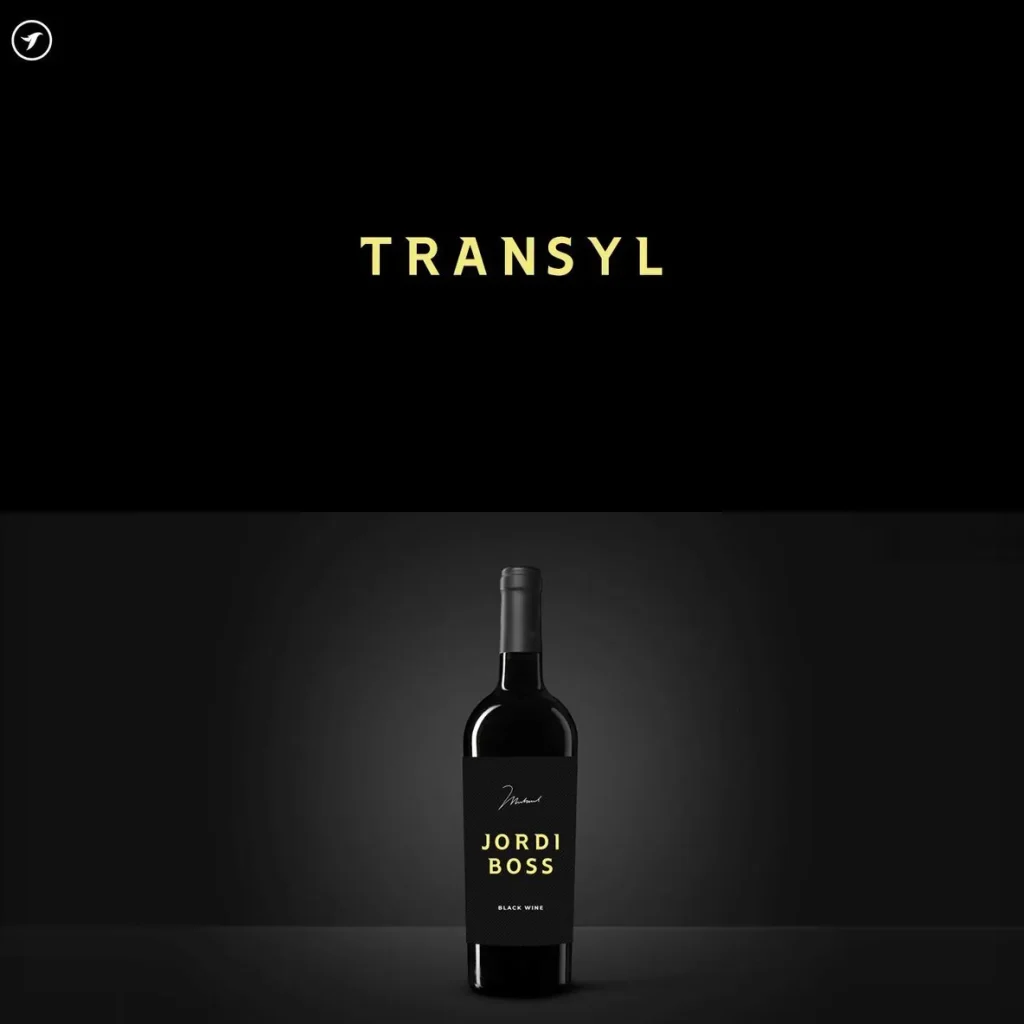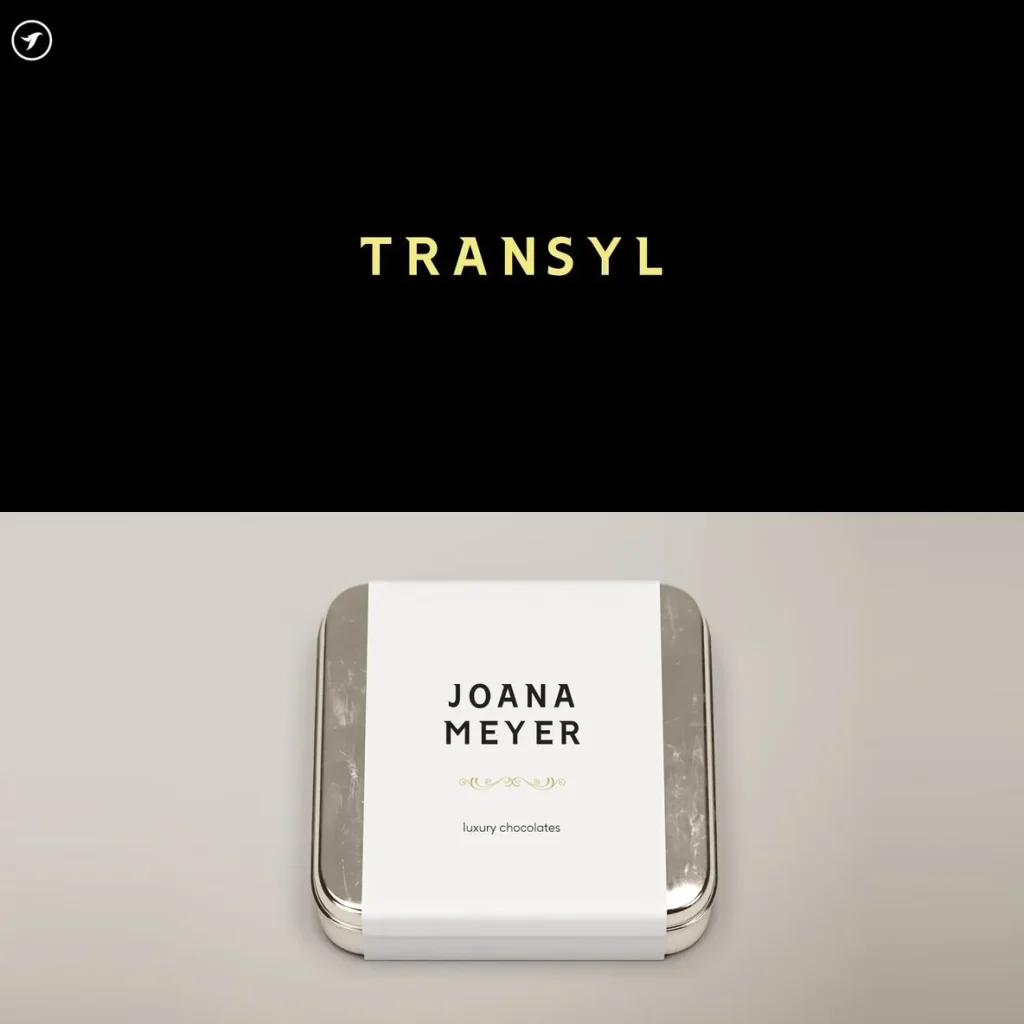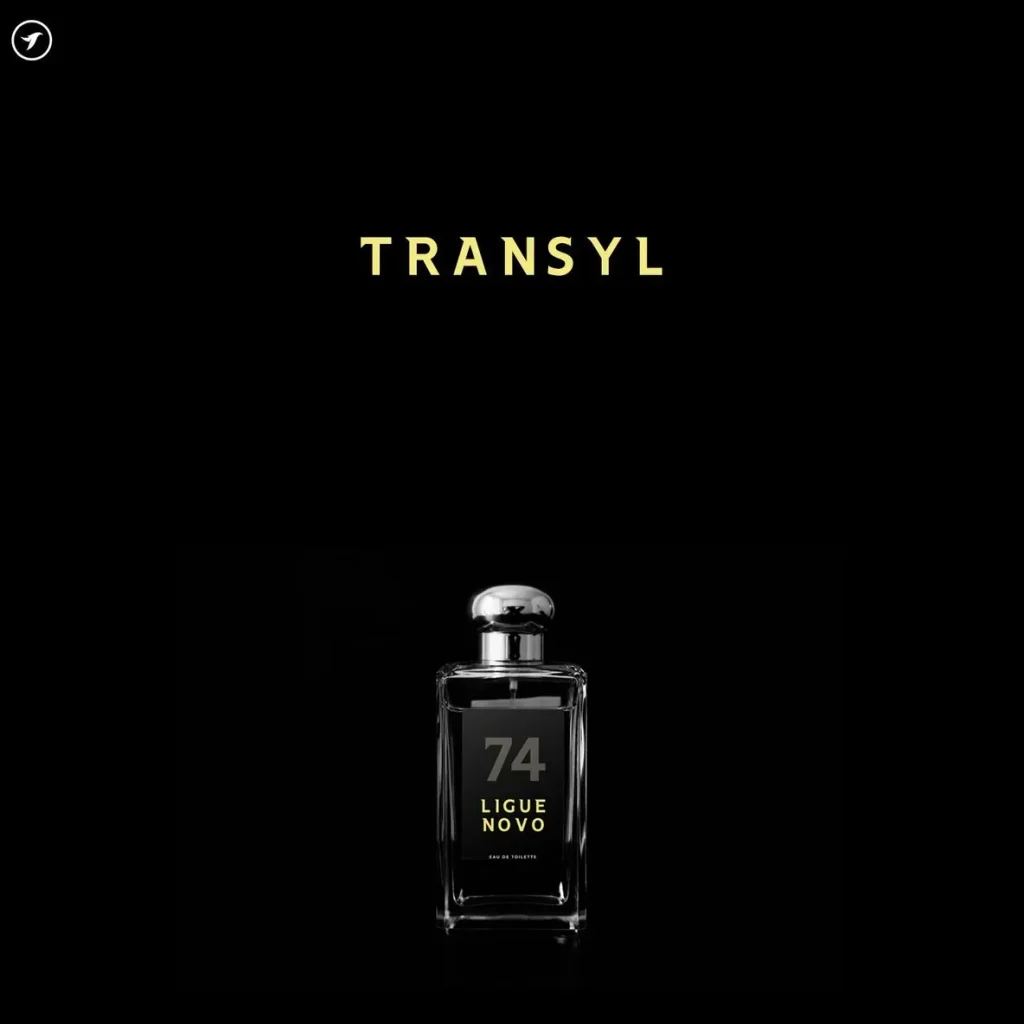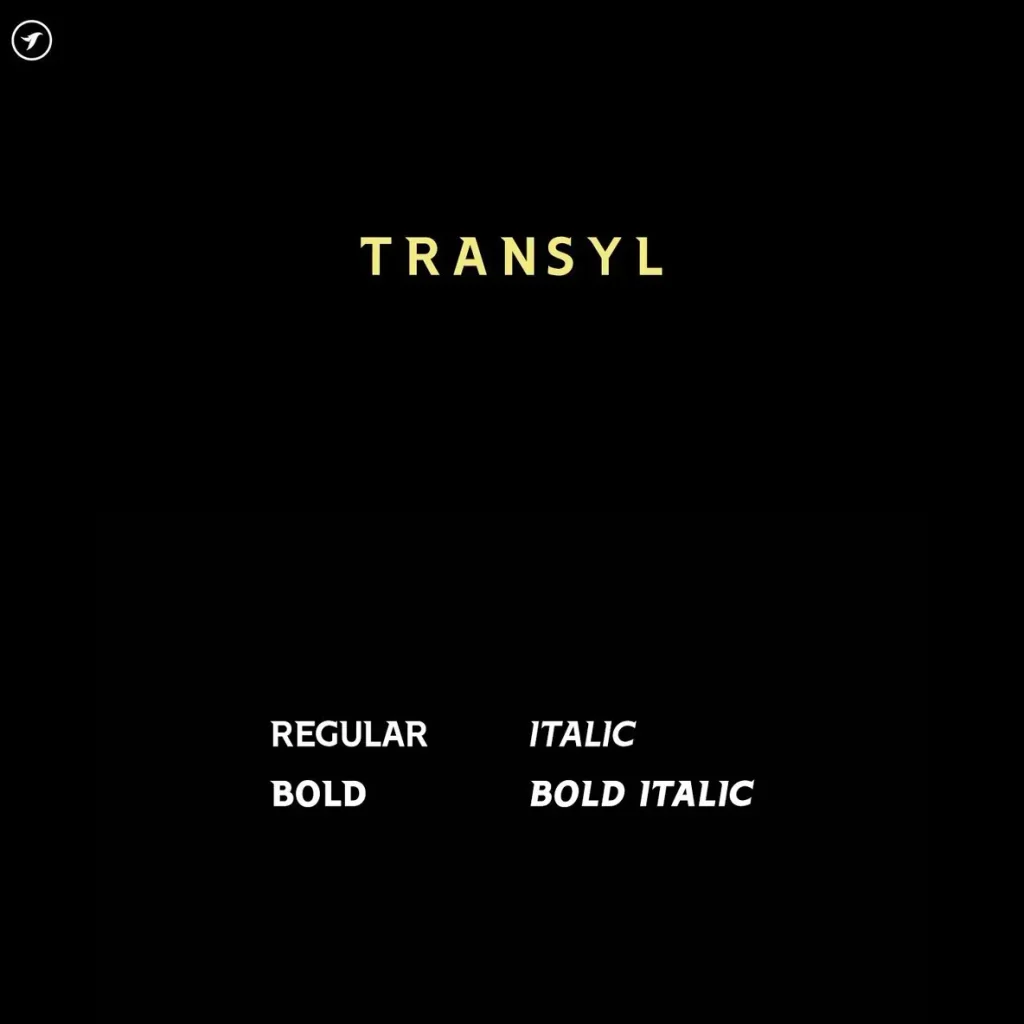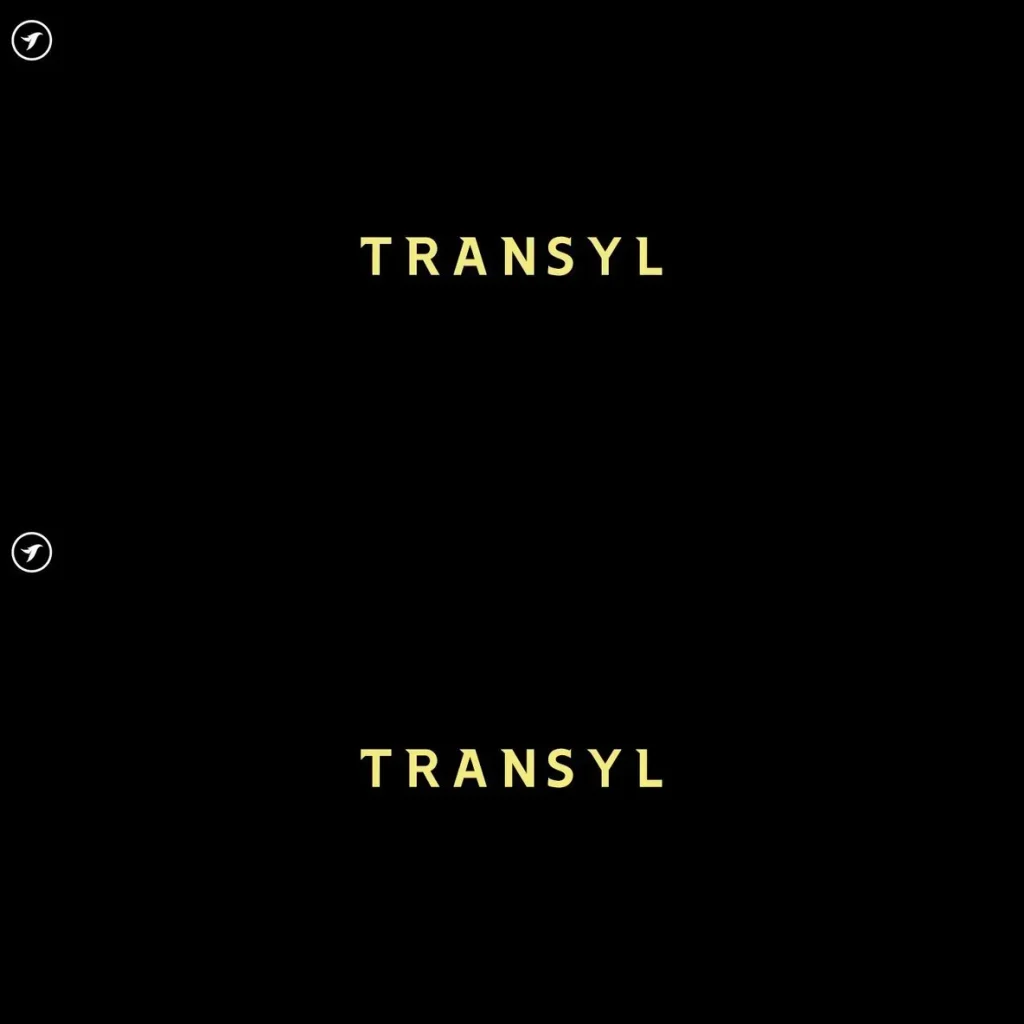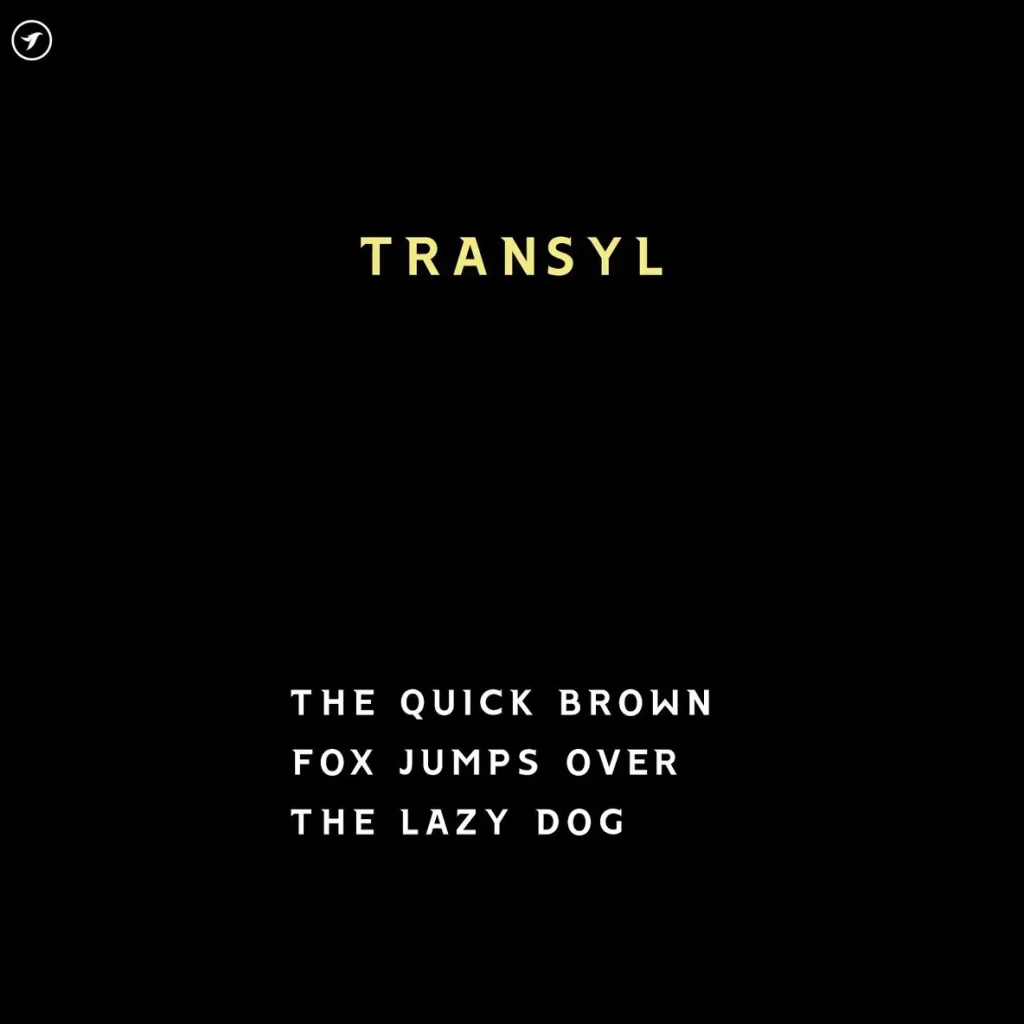
TRANSYL — Refined Display Drama
TRANSYL is an elegant display typeface with sophisticated shapes, stylish details, and a refined visual character. Its graceful letterforms give typography a premium, artistic feeling while keeping a modern appearance. The design suits settings where tone, presence, and visual polish matter from the first glance.
Use TRANSYL for fashion branding, editorial designs, luxury packaging, logos, posters, and creative presentations. Its refined structure helps headlines and identity work feel poised and expressive, while its contemporary finish keeps the overall look clear and current. For projects that need stylish display typography with a polished edge, TRANSYL brings a confident and artistic voice.